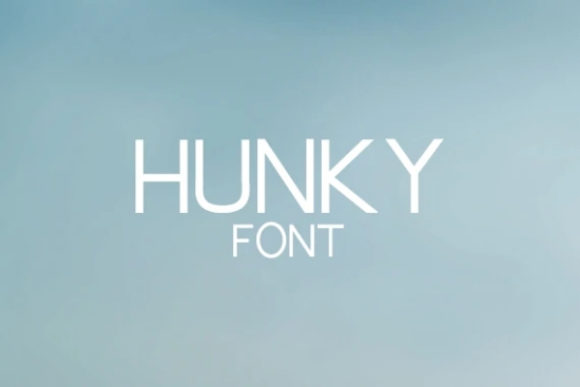
Hunky Font
**Introducing Hunky Font: The Font That's as Sweet as Honey**
Prepare to be smitten with Hunky, the sans serif font that exudes both charm and sophistication. Its meticulously crafted letters dance across the page with an effortless grace that will leave you spellbound. Whether you're crafting elegant invitations, creating captivating social media graphics, or designing eye-catching logos, Hunky is the perfect choice to add a touch of sweetness and allure to your creations.
With its clean lines and impeccable balance, Hunky seamlessly adapts to any design aesthetic. Its versatility knows no bounds, making it the ideal font for both classic and contemporary projects. Imagine the possibilities: Hunky can transform your wedding invitations into timeless keepsakes, elevate your branding materials to new heights, or add a touch of whimsy to your personal correspondence.
But Hunky is more than just a pretty face. It's a font that speaks to your heart, evoking a sense of warmth and nostalgia. Its gently rounded curves and playful spirit will melt away your worries, leaving you with a smile on your face.